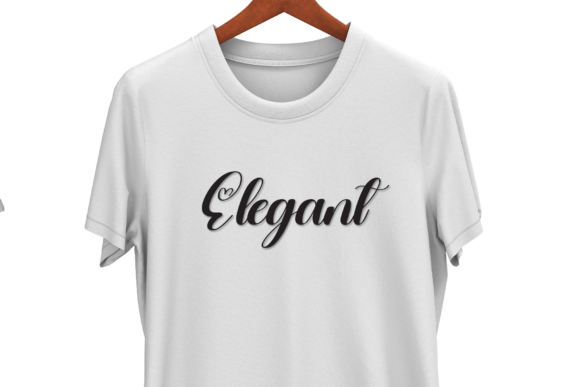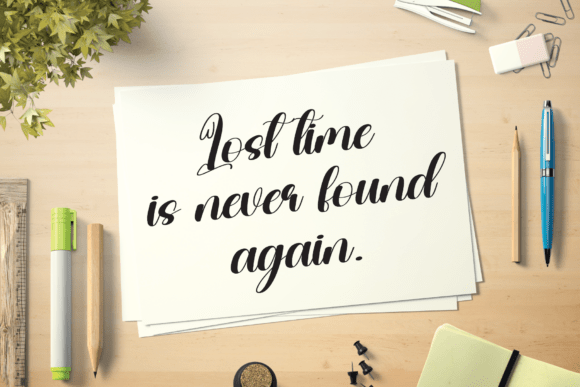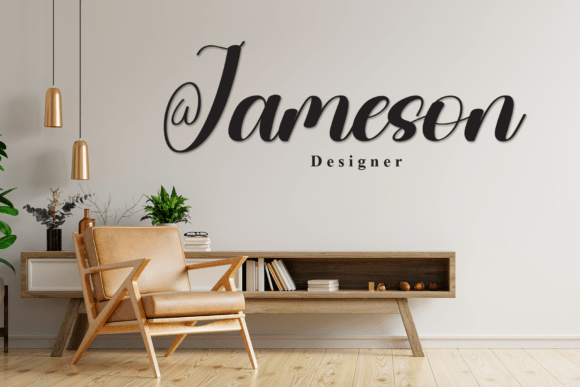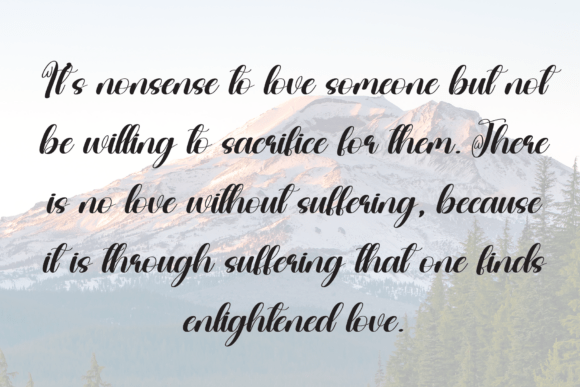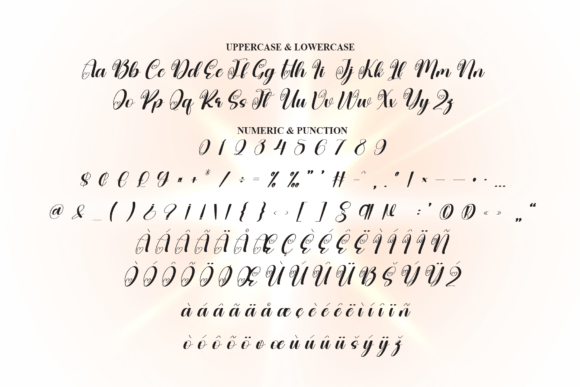
Introducing Glowing Font: Add a Cozy Touch to Your Creative Projects
Are you looking for a font that can infuse a warm and cozy feel into your designs? Look no further than Glowing Font, a charming and affable handwritten display font that’s perfect for adding a touch of whimsy to your creative projects. With its delightful and playful style, this font is sure to bring joy and amiability to your content.
What is Glowing Font?
Glowing Font is a carefully crafted handwritten display font that’s designed to bring a sense of warmth and friendliness to your designs. Its unique and whimsical style makes it perfect for use in a variety of creative projects, from wedding invitations and greeting cards to social media graphics and blog posts.
Key Features of Glowing Font
- Handwritten style: Glowing Font boasts a charming handwritten style that’s perfect for adding a personal touch to your designs.
- Whimsical and playful: This font’s delightful and whimsical style is sure to bring a smile to your audience’s faces.
- Perfect for creative projects: Glowing Font is ideal for use in wedding invitations, greeting cards, social media graphics, blog posts, and any other design that needs a dash of fun.
- Easy to read: Despite its playful style, Glowing Font is easy to read and understand, making it perfect for use in body text and headings.
Use Cases for Glowing Font
Glowing Font is a versatile font that can be used in a variety of creative projects, including:
- Wedding invitations: Add a touch of romance and whimsy to your wedding invitations with Glowing Font.
- Greeting cards: Use Glowing Font to create playful and heartfelt greeting cards for birthdays, holidays, and special occasions.
- Social media graphics: Add a dash of fun and personality to your social media graphics with Glowing Font.
- Blog posts: Use Glowing Font to add a touch of whimsy and playfulness to your blog posts and articles.
Benefits of Using Glowing Font
By using Glowing Font in your creative projects, you can:
- Add a personal touch: Glowing Font’s handwritten style adds a personal touch to your designs, making them more relatable and engaging.
- Stand out from the crowd: With its unique and whimsical style, Glowing Font can help your designs stand out from the crowd and grab attention.
- Create a emotional connection: Glowing Font’s playful and friendly style can help create an emotional connection with your audience, making them more likely to engage with your content.
Tips for Using Glowing Font
Here are some tips for using Glowing Font in your creative projects:
- Use it sparingly: Glowing Font is a display font, so it’s best to use it sparingly to add emphasis and interest to your designs.
- Pair it with other fonts: Glowing Font pairs well with other fonts, so feel free to experiment with different font combinations to create a unique look.
- Experiment with colors: Glowing Font looks great in a variety of colors, so don’t be afraid to experiment with different colors and gradients.
In conclusion, Glowing Font is a charming and affable handwritten display font that’s perfect for adding a cozy touch to your creative projects. With its delightful and whimsical style, this font is sure to bring joy and amiability to your content. Whether you’re a designer, crafter, or DIY enthusiast, Glowing Font is a great addition to your font collection.